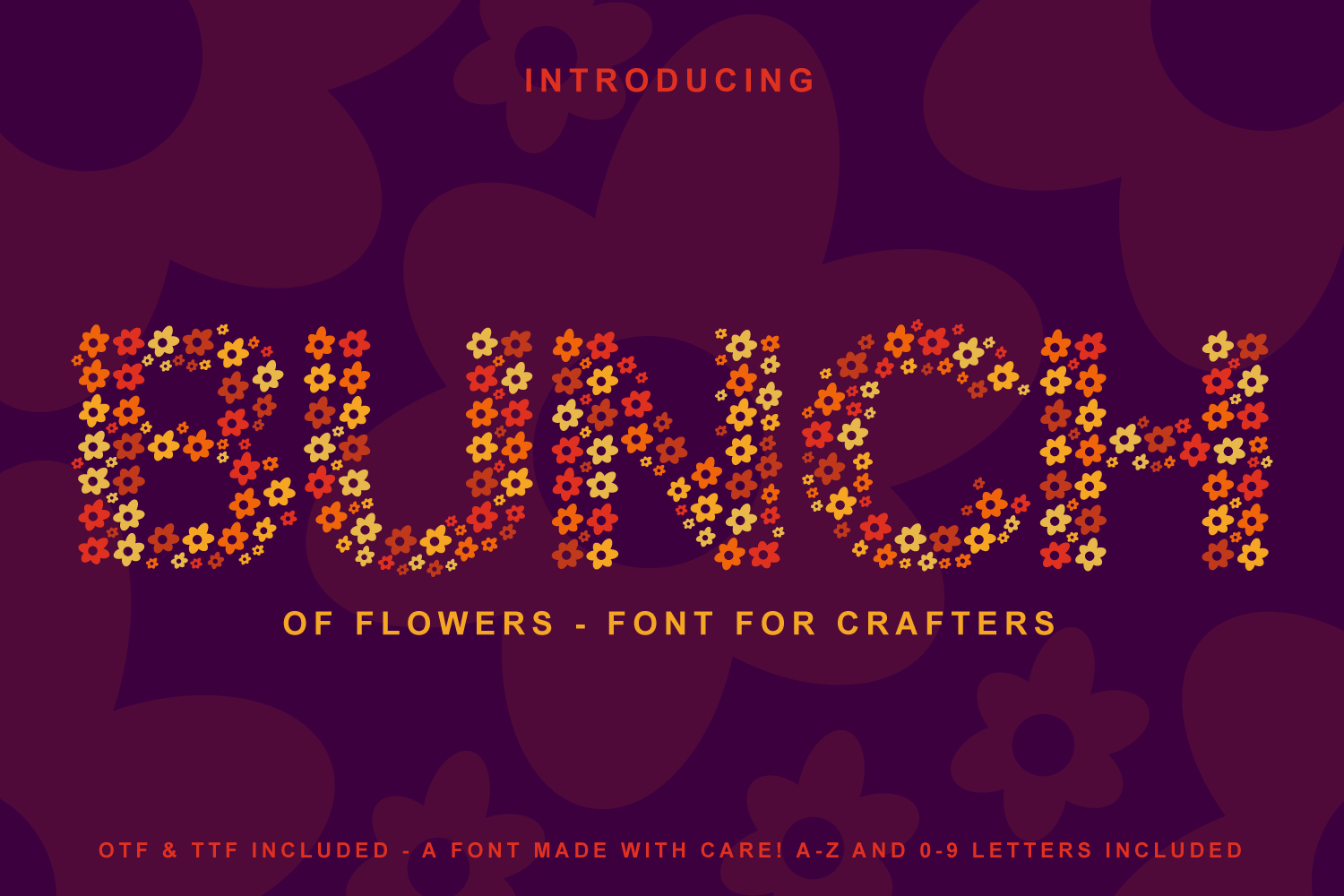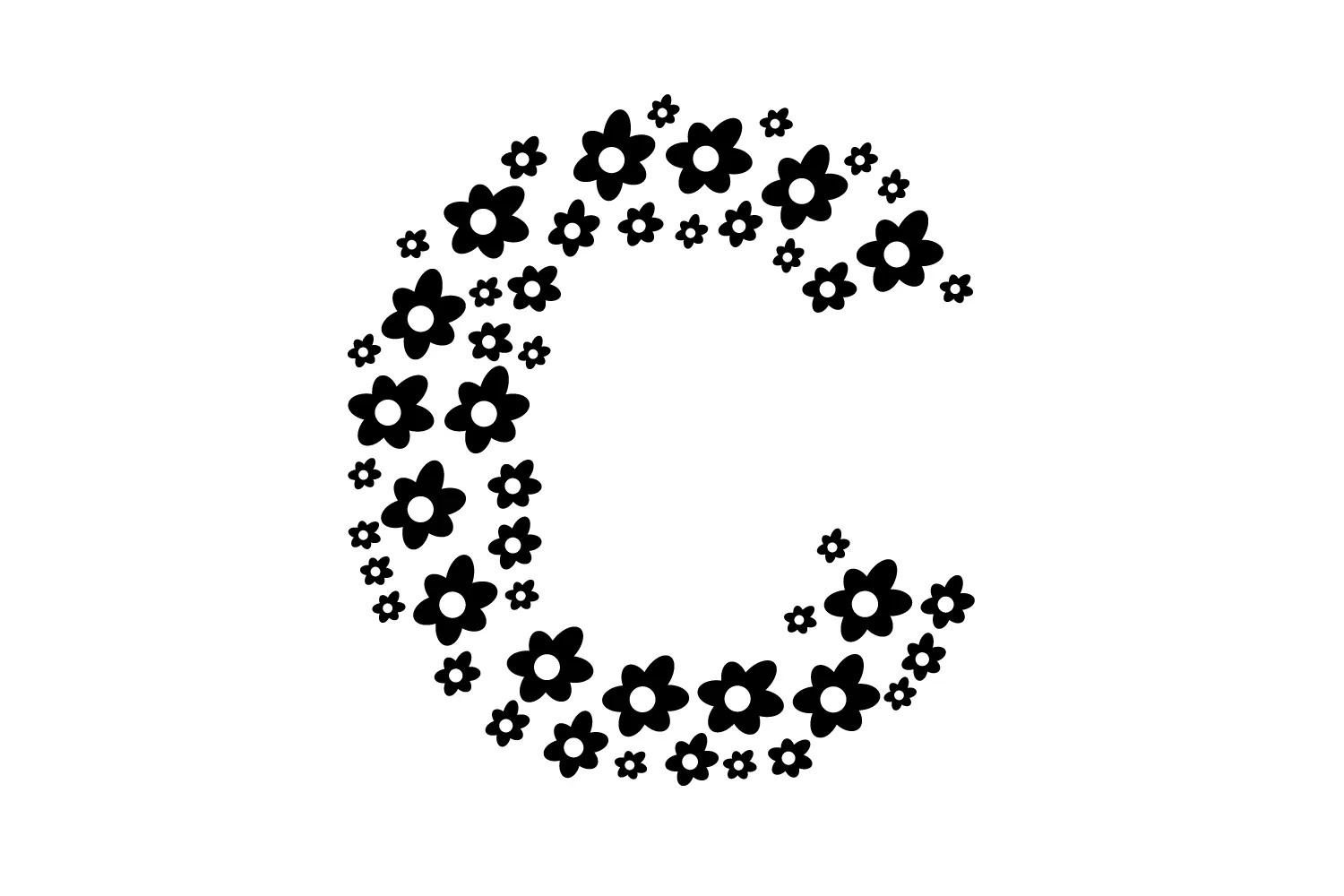
A cute Bunch of Flowers - A Font Made for Crafters! - You can create lots of things using this font including logos, use in Cricut machines etc for your parties like birthdays, fun projects, and making monograms. This font is ready to help you in every situation.